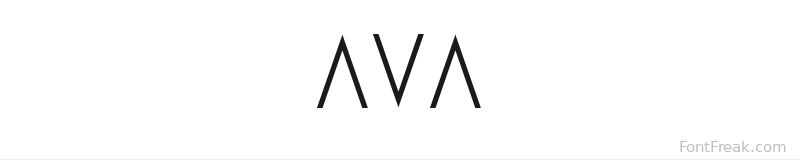
AVA
About AVA
The AVA font by GGBot is a striking display typeface that captivates with its modern aesthetic and unique character. As a sans-serif font, it features clean lines and geometric forms that lend a contemporary feel to any design project. The strokes are well-balanced, showcasing a medium weight that provides a sturdy appearance without being overwhelming. The contrast in stroke thickness is minimal, creating a harmonious flow throughout the letters. The letter spacing is thoughtfully designed, allowing for legibility while maintaining an elegant presence.
This versatile font shines in various applications, making it an ideal choice for wedding invitations, where its sleek design can evoke a sense of sophistication. It is also well-suited for movie posters, as its bold character can grab attention and convey a sense of drama. Restaurant menus can benefit from the AVA font's clarity and modernity, enhancing the overall dining experience. Additionally, small business owners can leverage this font for branding materials, ensuring their visual identity stands out in a competitive market. Content creators will find it perfect for social media graphics, providing an eye-catching element that draws viewers in.